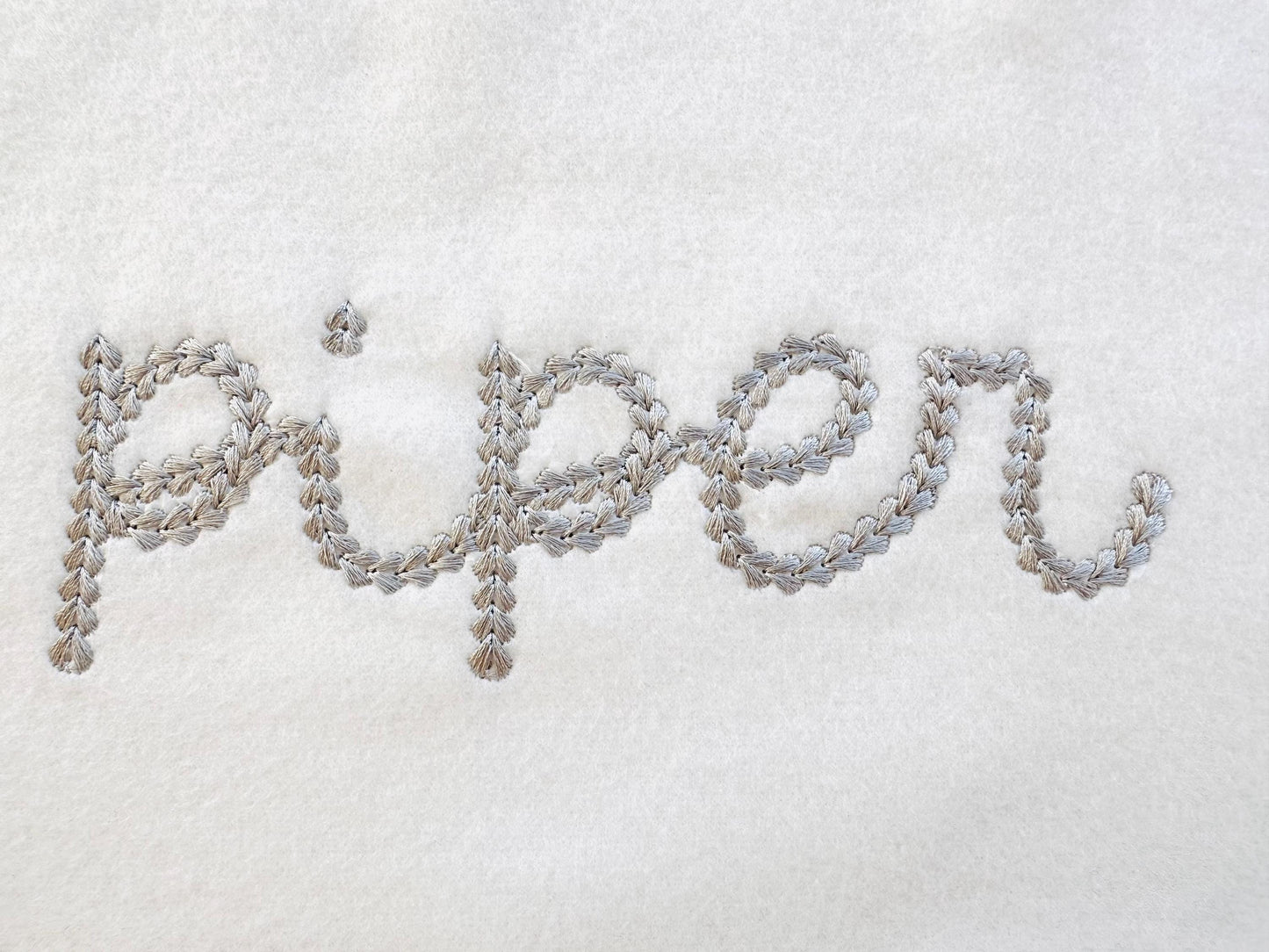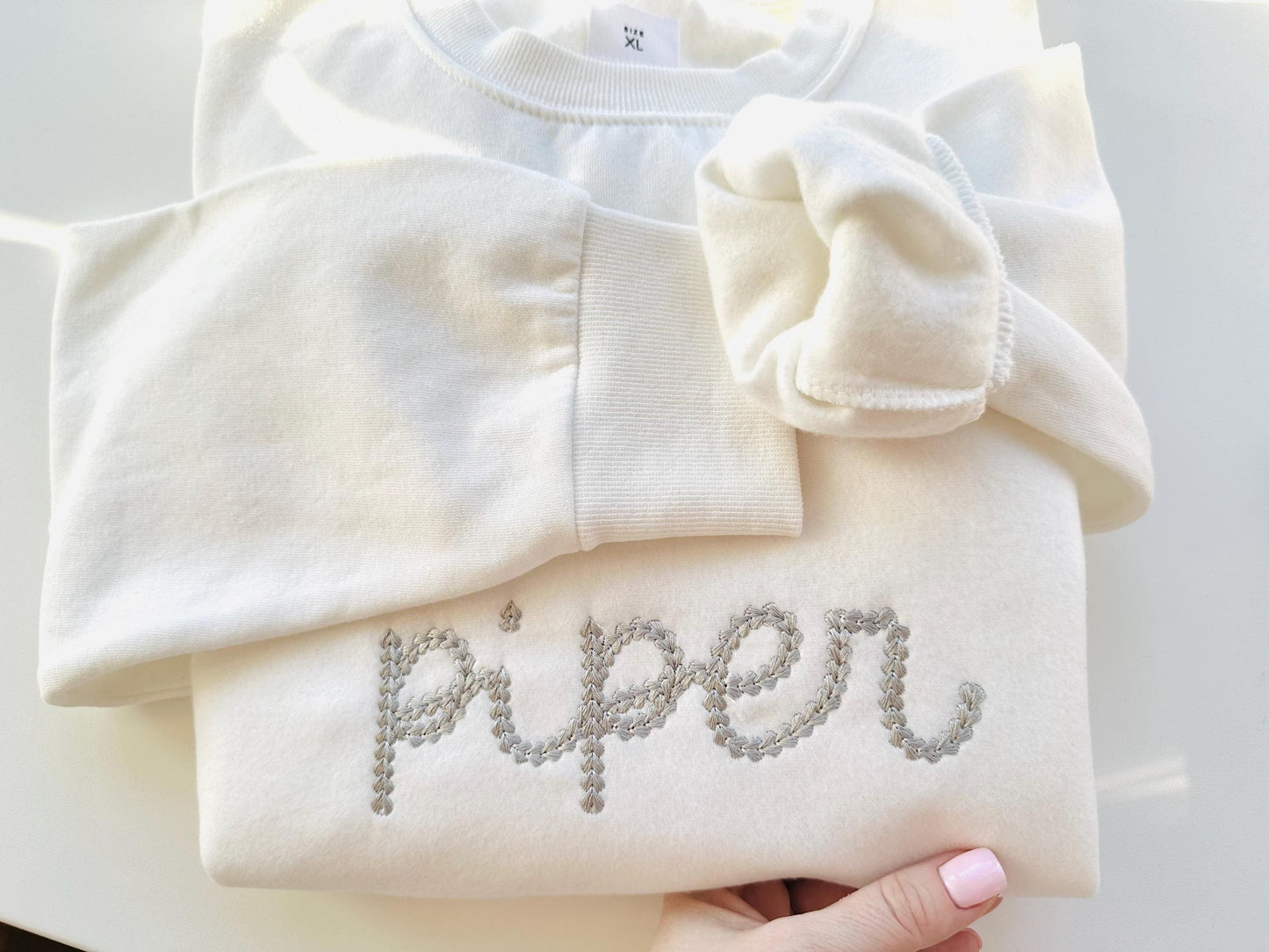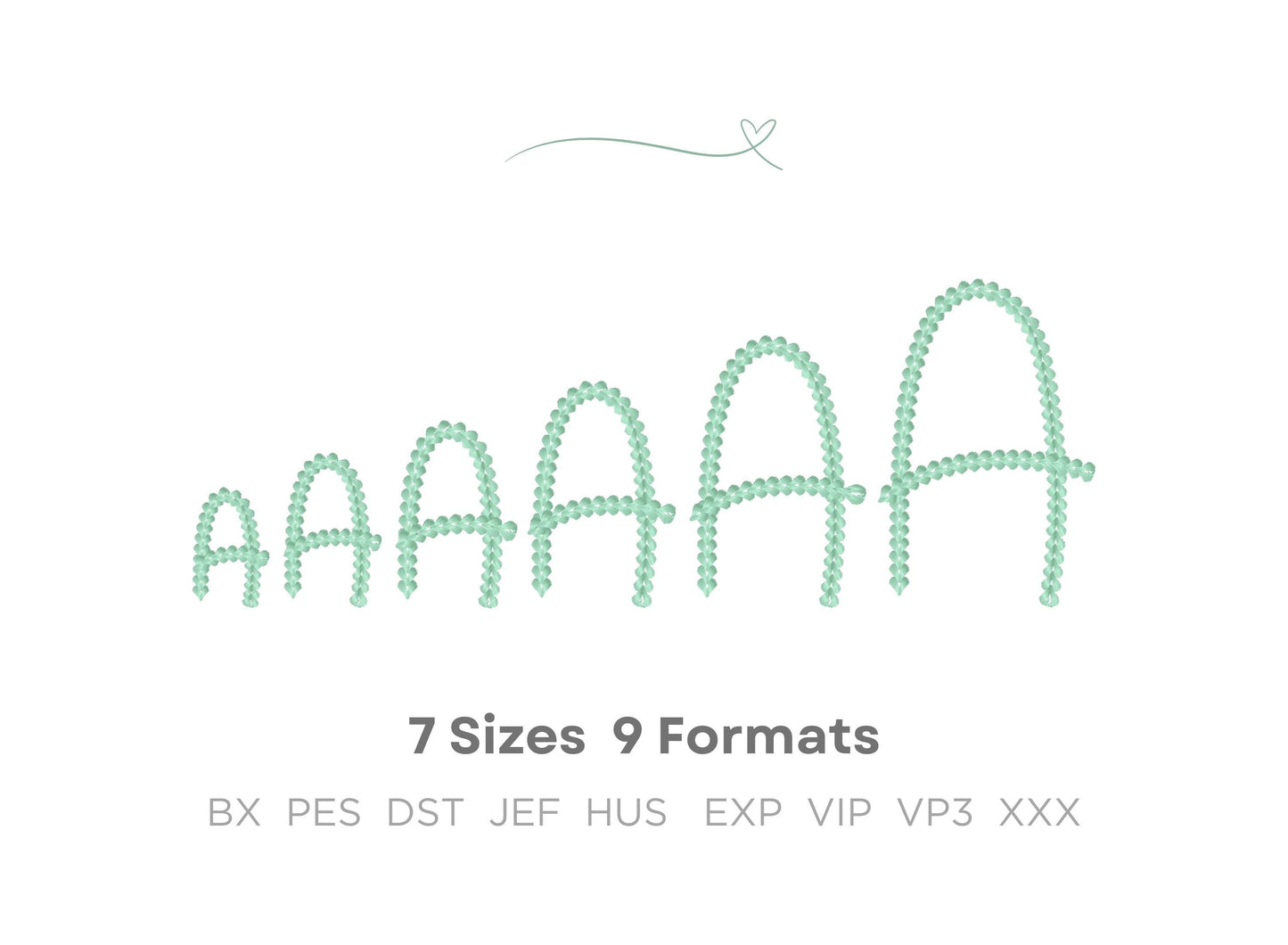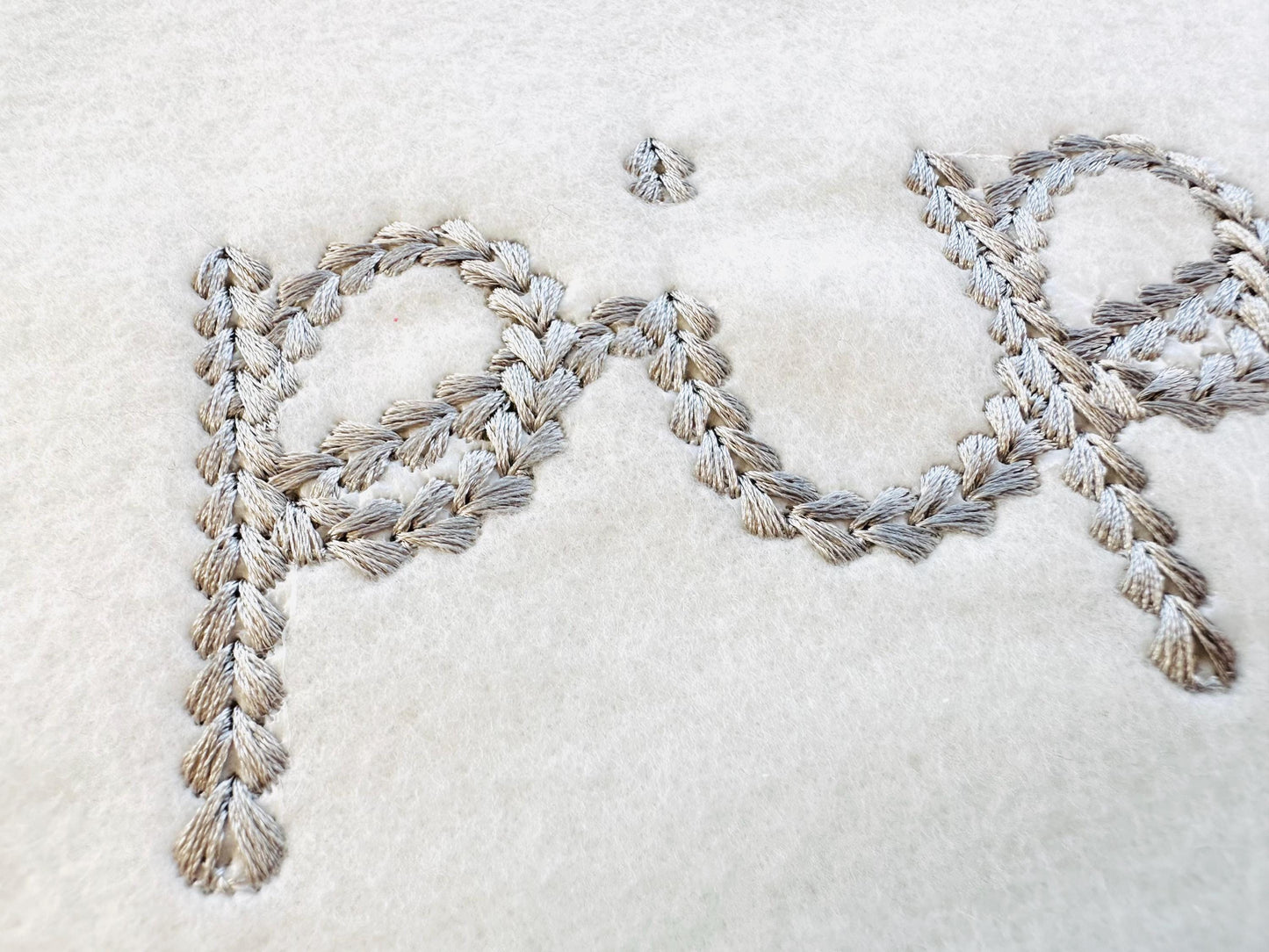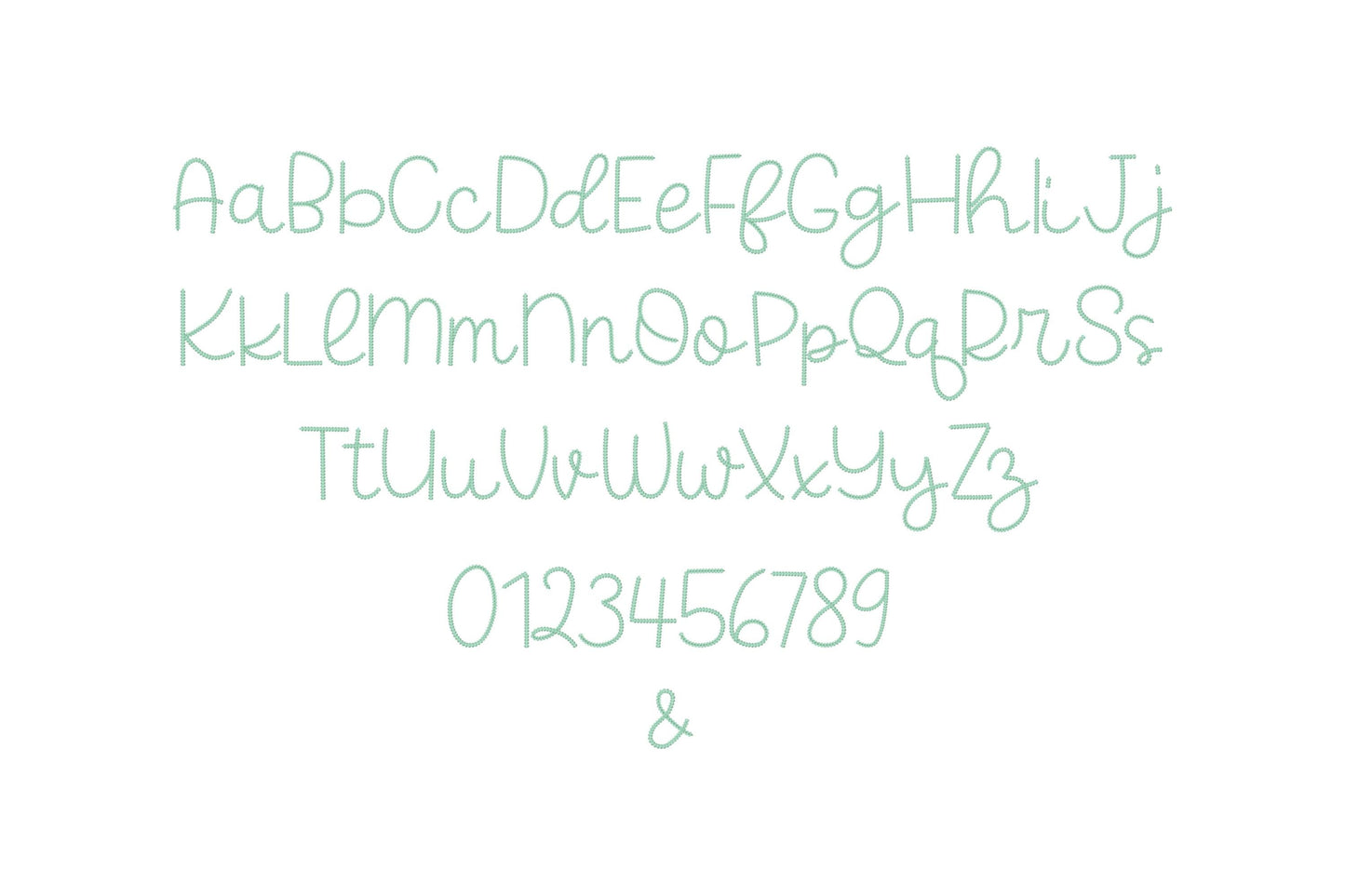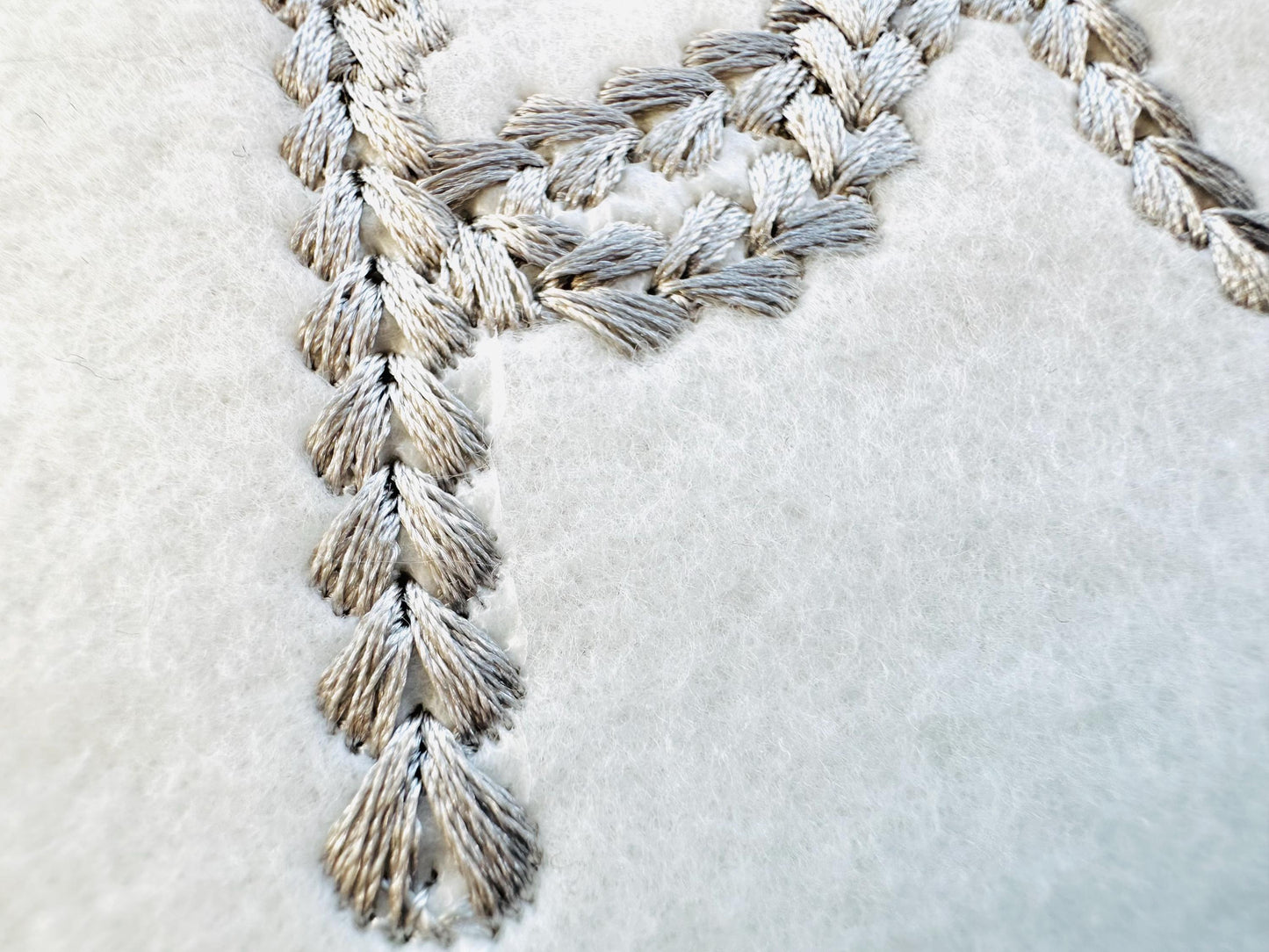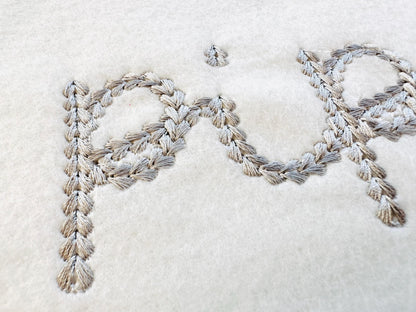
Or click to open the linkAn extra bold chain stitch script with a hand-knit sweater look, for names on sweaters, jackets and bags.
Dense chain stitch letters. Uppercase and lowercase letters, numbers and an ampersand in six sizes: 1.7, 2.2, 2.7, 3.3, 4 and 4.7 inches.